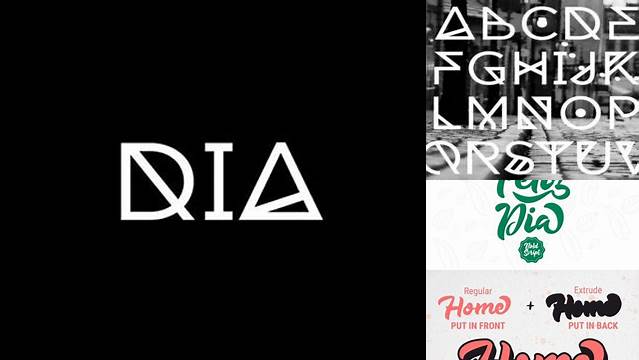
Hey guys! Looking to spice up your design projects? Well, you've come to the right place! Let's dive into everything you need to know about getting your hands on dia font free downloads. Whether you're a seasoned designer or just starting out, having the right font can make all the difference. We’ll explore where to find these fonts, how to use them, and some creative ideas to get you inspired. So, buckle up and let’s get started!
Understanding Dia Fonts
Dia fonts, known for their unique geometric shapes and modern appeal, have become a staple in contemporary design. Dia fonts often feature clean lines and minimalist aesthetics, making them incredibly versatile for various projects. They're perfect for logos, branding materials, website headers, and even print designs. The clarity and readability of dia fonts ensure that your message is conveyed effectively, regardless of the medium. Many designers appreciate dia fonts for their ability to create a sense of sophistication and professionalism. When used correctly, these fonts can elevate the overall look and feel of any design, giving it a polished and contemporary edge. Additionally, the distinctive character of dia fonts helps brands stand out, ensuring that their visual identity is memorable and impactful. With a variety of weights and styles available, dia fonts offer the flexibility to tailor your designs to specific needs, making them an invaluable asset in any designer's toolkit. The versatility of dia fonts also extends to their compatibility with different design software, ensuring a seamless integration into your workflow. By choosing the right dia font, you can enhance the visual appeal of your projects and create designs that truly resonate with your audience.
Where to Find Free Dia Fonts
Using Dia Fonts in Graphic Design
Using dia fonts effectively in graphic design requires a keen eye for detail and an understanding of typography principles. Dia fonts, with their clean and modern aesthetic, are perfect for creating logos, branding materials, and website designs. When using dia fonts in logos, consider the overall message and brand identity you want to convey. Choose a font weight and style that aligns with the brand’s personality. For branding materials, use dia fonts consistently across all platforms to create a cohesive and recognizable brand image. In website design, dia fonts can be used for headings, body text, and navigation menus. Ensure that the font is readable and accessible on different devices and screen sizes. Experiment with different font pairings to create visual interest and hierarchy. For example, you can pair a dia font with a serif font for a balanced and sophisticated look. Pay attention to kerning, leading, and tracking to optimize readability and visual appeal. Use whitespace effectively to create a clean and uncluttered design. By mastering these techniques, you can leverage the power of dia fonts to create stunning and impactful graphic designs.
Pairing Dia Fonts with Other Fonts
Paring dia fonts with other fonts can create visually appealing and balanced designs. The key is to choose fonts that complement each other in terms of style, weight, and overall aesthetic. For example, a clean and modern dia font can be paired with a classic serif font to create a sophisticated and timeless look. When pairing fonts, consider the hierarchy and readability of your design. Use the dia font for headings and the serif font for body text, or vice versa. Experiment with different font combinations to find the perfect balance. Some popular font pairings include dia fonts with fonts like Montserrat, Roboto, and Open Sans. These combinations offer a harmonious blend of modern and traditional styles. Avoid pairing fonts that are too similar, as this can create a monotonous and uninteresting design. Instead, look for fonts that offer a contrast in terms of weight, size, or style. Use online tools and resources to explore different font pairings and get inspiration from other designers. By mastering the art of font pairing, you can create visually stunning and impactful designs that effectively communicate your message. Always test your font pairings on different devices and screen sizes to ensure readability and accessibility.
Creative Projects Using Dia Fonts
Dia fonts are incredibly versatile and can be used in a wide range of creative projects. From logo design to website headers, the clean and modern aesthetic of dia fonts can elevate any project. Consider using dia fonts for creating eye-catching social media graphics, posters, and flyers. The geometric shapes and minimalist design of dia fonts make them perfect for creating modern and sophisticated designs. Experiment with different font weights and styles to create visual interest and hierarchy. Use dia fonts for creating personalized greeting cards, invitations, and stationery. The elegant and refined look of dia fonts can add a touch of class to any occasion. For branding projects, use dia fonts consistently across all platforms to create a cohesive and recognizable brand image. Consider using dia fonts for designing book covers, magazine layouts, and editorial designs. The readability and clarity of dia fonts make them ideal for long-form text. Explore different color palettes and design elements to complement the dia fonts and create a visually stunning and impactful design. By exploring the versatility of dia fonts, you can unleash your creativity and create stunning designs that stand out from the crowd.
Dia Fonts for Logo Design
For logo design, dia fonts offer a sleek and contemporary option that can effectively convey a brand's identity. With their clean lines and geometric shapes, dia fonts are ideal for creating logos that are both modern and timeless. When choosing a dia font for your logo, consider the overall message and brand personality you want to communicate. A bold and strong dia font can convey confidence and reliability, while a lighter and more delicate dia font can evoke a sense of elegance and sophistication. Experiment with different font weights and styles to find the perfect balance. Consider using a custom version of a dia font to create a unique and memorable logo. Pay attention to kerning and spacing to ensure that the logo is visually appealing and easy to read. Use a vector-based design software like Adobe Illustrator to create your logo, as this will allow you to scale the logo without losing quality. Test the logo on different backgrounds and sizes to ensure that it looks good in all contexts. By using dia fonts effectively in logo design, you can create a strong and recognizable brand identity that resonates with your target audience. Always ensure that your logo is simple, memorable, and versatile.
Dia Fonts for Website Design
When it comes to website design, dia fonts can enhance the user experience by providing clear and readable typography. The clean and modern aesthetic of dia fonts makes them ideal for creating websites that are both visually appealing and easy to navigate. Use dia fonts for headings, body text, and navigation menus to create a cohesive and professional look. Ensure that the font is readable on different devices and screen sizes. Consider using different font weights and styles to create visual hierarchy and highlight important information. Pay attention to line height and letter spacing to optimize readability. Use a responsive design framework to ensure that the website looks good on all devices. Test the website on different browsers and operating systems to ensure compatibility. Consider using a font loading strategy to improve website performance. Choose a color palette that complements the dia fonts and enhances the overall design. By using dia fonts effectively in website design, you can create a website that is both visually stunning and user-friendly. Always prioritize readability and accessibility to ensure that all users can easily access and navigate the website. Regularly update your website design to keep it fresh and modern.
Dia Fonts for Branding Materials
Using dia fonts for branding materials can help create a consistent and professional brand image. The clean and modern aesthetic of dia fonts makes them ideal for designing business cards, letterheads, brochures, and other marketing materials. Choose a dia font that aligns with your brand's personality and values. Use the same font consistently across all branding materials to create a cohesive and recognizable brand identity. Consider using different font weights and styles to create visual hierarchy and highlight important information. Pay attention to layout and spacing to ensure that the branding materials are visually appealing and easy to read. Use high-quality printing materials to ensure that the branding materials look professional and polished. Consider using a professional design service to create your branding materials. Test the branding materials on different devices and screen sizes to ensure that they look good in all contexts. By using dia fonts effectively in branding materials, you can create a strong and memorable brand identity that resonates with your target audience. Always ensure that your branding materials are consistent, professional, and visually appealing.
Dia Fonts and Readability
Dia fonts, while stylish, must be chosen carefully to ensure readability. The clarity of a font is crucial, especially for body text. Select dia fonts with ample spacing and clear letterforms to avoid eye strain. Consider the font size and line height to optimize the reading experience. Test the font on different backgrounds and screen sizes to ensure legibility. Avoid using overly decorative or condensed dia fonts for long passages of text. Pair dia fonts with more readable fonts for a balanced design. Use proper kerning and tracking to improve letter spacing. Consult readability guidelines to ensure your font choices meet accessibility standards. Remember, the primary goal is to communicate effectively, so prioritize readability over aesthetics. By paying attention to readability, you can create designs that are both visually appealing and user-friendly. Always get feedback from others to assess the readability of your font choices.
Dia Fonts and Accessibility
Ensuring accessibility when using dia fonts is crucial for inclusive design. Choose fonts that are easily readable for people with visual impairments. Provide sufficient contrast between the text and background colors. Use larger font sizes to improve readability. Avoid using thin or light-weight dia fonts, as they can be difficult to read. Ensure that the font is compatible with screen readers and other assistive technologies. Provide alternative text for images and other non-text elements. Use clear and concise language to improve comprehension. Test your designs with users who have disabilities to identify and address any accessibility issues. Follow accessibility guidelines, such as WCAG, to ensure your designs meet accessibility standards. By prioritizing accessibility, you can create designs that are inclusive and usable for everyone. Always consider the needs of all users when choosing and implementing dia fonts.
Dia Fonts and Mobile Design
In mobile design, dia fonts can create a modern and streamlined look. However, consider screen size limitations. Choose fonts optimized for small screens to ensure readability. Use responsive design to adjust font sizes for different devices. Test font appearance on various mobile devices. Simplify typography by using fewer font styles. Optimize loading times to avoid performance issues. Ensure adequate spacing and contrast for mobile readability. Prioritize clear and concise text. Use touch-friendly font sizes for buttons and interactive elements. By carefully selecting and implementing dia fonts, you can enhance mobile user experience. Always test your mobile designs on real devices to ensure optimal readability and usability.
Best Dia Font Styles for Headlines
For headlines, certain dia font styles stand out. Bold and impactful dia fonts grab attention. Geometric sans-serifs convey modernity and clarity. Consider fonts with strong vertical strokes for emphasis. Experiment with condensed styles for space efficiency. Use contrasting font weights to create visual hierarchy. Pair with a complementary body font for balance. Test headline legibility on different backgrounds. Ensure readability at various screen sizes. Research trending headline font styles for inspiration. By choosing the right dia font, you can create headlines that are both eye-catching and effective.
Utilizing Dia Fonts in Print Media
When utilizing dia fonts in print media, consider resolution and paper quality. Choose fonts with clean lines for sharp printing. Ensure adequate spacing to prevent ink bleed. Test font appearance on different paper types. Use high-resolution font files for optimal print quality. Adjust font sizes to suit the printed format. Prioritize readability for long-form content. Select appropriate font weights for headlines and body text. Proofread carefully to catch any font-related errors. By carefully selecting and implementing dia fonts, you can create visually appealing and professional print materials.
Dia Fonts and Social Media Graphics
Dia fonts can elevate social media graphics, providing a modern and clean aesthetic. Select fonts that are legible on small screens. Use contrasting colors to enhance readability. Employ bold fonts for attention-grabbing headlines. Ensure text fits within the image dimensions. Test font appearance on various social media platforms. Prioritize clear and concise messaging. Utilize whitespace to create a balanced design. Choose fonts that align with your brand identity. By thoughtfully incorporating dia fonts, you can create engaging social media visuals.
Creating a Unique Brand with Dia Fonts
Creating a unique brand with dia fonts involves strategic font selection and consistent application. Choose a dia font that embodies your brand's personality. Use the font consistently across all marketing materials. Develop a unique color palette that complements the font. Create a visual style guide to maintain brand consistency. Ensure the font is legible in all formats and sizes. Use the font to create a memorable logo and tagline. Train your team to use the font correctly. Monitor brand perception and adapt your font usage as needed. By carefully curating and implementing dia fonts, you can establish a distinctive and recognizable brand identity.
The Future of Dia Fonts in Design
The future of dia fonts in design looks promising, with ongoing innovations and trends shaping their role. Expect to see more variable fonts offering greater customization. AI-driven tools will aid in font selection and pairing. Designers will increasingly prioritize accessibility and inclusivity. New dia font styles will emerge, reflecting evolving aesthetic preferences. The integration of dia fonts with augmented reality (AR) and virtual reality (VR) will create immersive experiences. Sustainable font design will gain prominence, focusing on resource efficiency. By staying informed about these trends, designers can harness the full potential of dia fonts.
Common Mistakes When Using Dia Fonts
Several common mistakes can undermine the effectiveness of dia fonts. Overusing decorative fonts hinders readability. Neglecting spacing issues impairs visual appeal. Ignoring font licensing leads to legal problems. Inconsistent font usage dilutes brand identity. Poor color contrast reduces accessibility. Using too many font styles creates visual clutter. Failing to test fonts on different devices leads to compatibility issues. Ignoring readability guidelines makes content inaccessible. By avoiding these pitfalls, designers can maximize the impact of dia fonts.
Dia Fonts vs. Serif Fonts: Which to Choose?
Choosing between dia fonts and serif fonts depends on your design goals. Dia fonts offer a modern, clean aesthetic suitable for digital interfaces and minimalist designs. Serif fonts convey tradition and authority, ideal for formal documents and print media. Consider your target audience and brand personality. Dia fonts are often preferred for headlines and logos, while serif fonts are better for body text. Balance both font types for visual harmony. Test font pairings to ensure readability and visual appeal. By carefully weighing the pros and cons, you can make the best choice for your project.
Top Websites for Dia Font Inspiration
Finding inspiration for dia fonts is easy with numerous online resources. Websites like Behance and Dribbble showcase innovative font usage. Google Fonts offers a wide selection of free dia fonts. FontPair provides harmonious font combinations. Typewolf highlights real-world typography examples. Pinterest is a treasure trove of visual inspiration. Awwwards showcases cutting-edge web designs using dia fonts. By exploring these websites, designers can discover new and creative ways to use dia fonts.
How to Create Your Own Dia Font
Creating your own dia font is a challenging but rewarding endeavor. Start by sketching your font design on paper. Use font design software like FontLab or Glyphs. Define the basic shapes and proportions of your letters. Pay attention to kerning and spacing. Test your font on different devices and screen sizes. Get feedback from other designers. Refine your font based on feedback. Export your font in TTF or OTF format. Consider licensing your font for commercial use. By following these steps, you can bring your unique dia font to life.
Dia Font Licensing: What You Need to Know
Understanding dia font licensing is crucial for legal compliance. Free fonts often have limited usage rights. Commercial fonts require a license fee. Read the license agreement carefully before using a font. Pay attention to restrictions on modification and distribution. Purchase a license that covers your intended use. Keep records of your font licenses. Seek legal advice if you are unsure about licensing terms. By respecting font licenses, you can avoid costly legal issues and support font designers.
Optimizing Dia Fonts for SEO
Optimizing dia fonts for SEO involves several key strategies. Choose fonts that are web-safe and load quickly. Use font weights and styles consistently. Ensure your fonts are readable on all devices. Use descriptive alt text for images with fonts. Optimize font files for faster loading times. Use semantic HTML tags to structure your content. Monitor your website's performance and adjust your font usage as needed. By following these tips, you can improve your website's SEO and user experience.
The Psychology of Dia Fonts in Marketing
The psychology of dia fonts in marketing plays a significant role in shaping consumer perceptions. Clean and modern fonts convey trustworthiness and innovation. Bold fonts grab attention and create a sense of urgency. Elegant fonts evoke luxury and sophistication. Choose fonts that align with your brand's values and target audience. Use fonts consistently across all marketing materials. Test different font pairings to see which resonates best with your audience. By understanding the psychology of dia fonts, you can create marketing campaigns that are both effective and visually appealing.
Advanced Techniques for Working with Dia Fonts
Mastering advanced techniques for working with dia fonts can elevate your design skills. Experiment with variable fonts for dynamic typography. Use CSS filters and effects to create unique font styles. Explore font animation to add visual interest. Incorporate dia fonts into generative art projects. Use font ligatures to create seamless letter combinations. Learn about optical sizing to optimize font rendering. By pushing the boundaries of dia font usage, you can create stunning and innovative designs.
Troubleshooting Common Dia Font Problems
Troubleshooting common dia font problems can save you time and frustration. If a font doesn't display correctly, check the font file for errors. Ensure the font is properly installed on your system. Clear your browser's cache to resolve display issues. Update your operating system and software. Check for font conflicts with other programs. Use a font validator to identify and fix font errors. Contact the font designer for support if needed. By addressing these common issues, you can ensure a smooth and seamless font experience.
Dia Fonts and User Interface (UI) Design
Dia fonts are ideal for user interface (UI) design due to their clarity and modern aesthetic. Choose fonts that are highly readable on screens. Use consistent font styles across the UI. Ensure adequate spacing and contrast for optimal legibility. Test font appearance on different devices and resolutions. Use font weights and sizes to create visual hierarchy. Prioritize accessibility for all users. By carefully selecting and implementing dia fonts, you can create UIs that are both visually appealing and user-friendly.